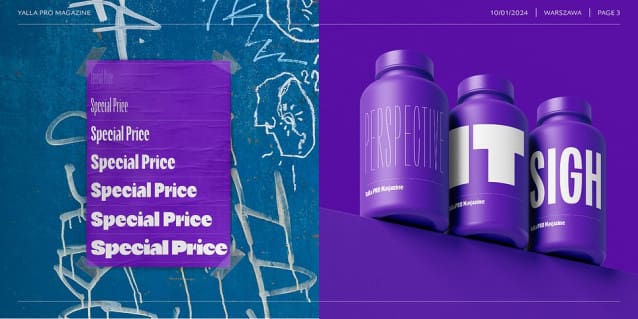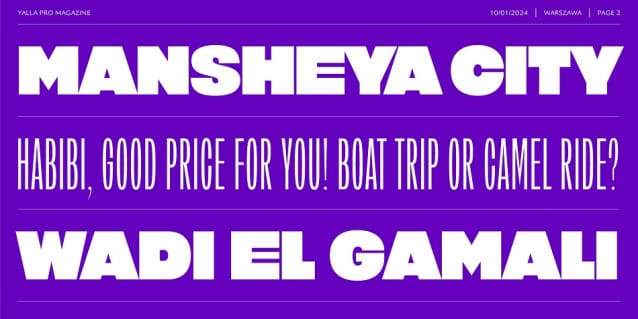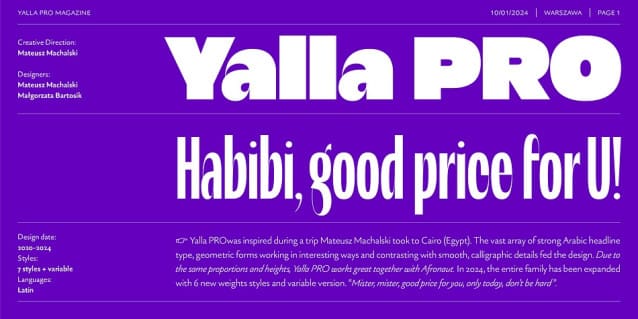
Yalla Pro Font Family
Yalla Pro Font Family, inspired during a trip Mateusz Machalski took to Cairo (Egypt). The vast array of strong Arabic headline type, geometric forms working in interesting ways and contrasting with smooth, calligraphic details fed the design. Due to the same proportions and heights, Yalla works great together with Afronaut. Yalla was extended in 2024 by Mateusz Machalski & Małgorzata Bartosik with new weights.